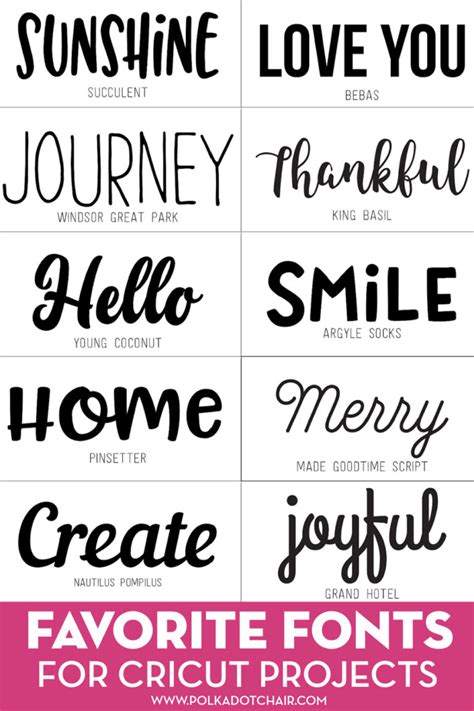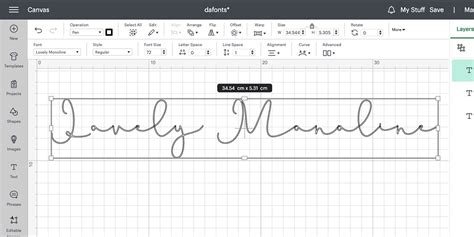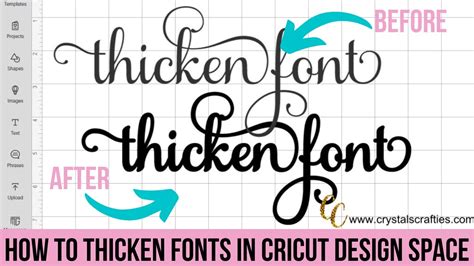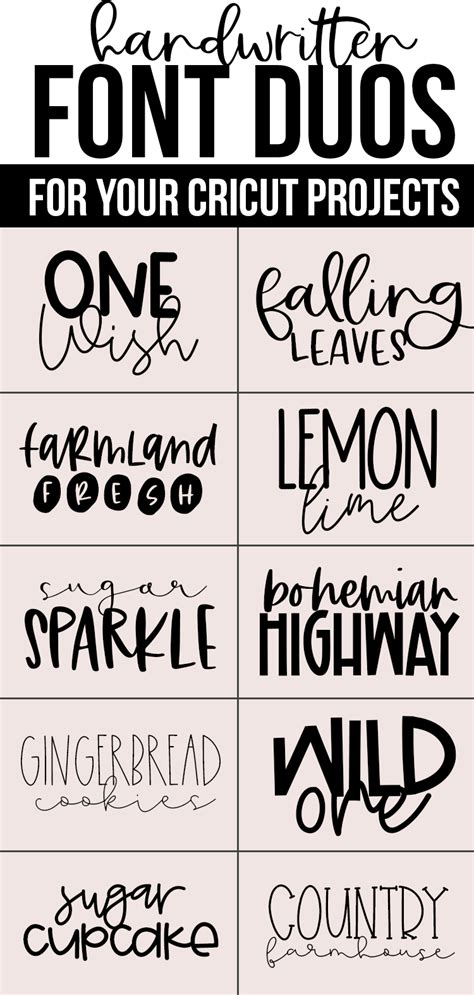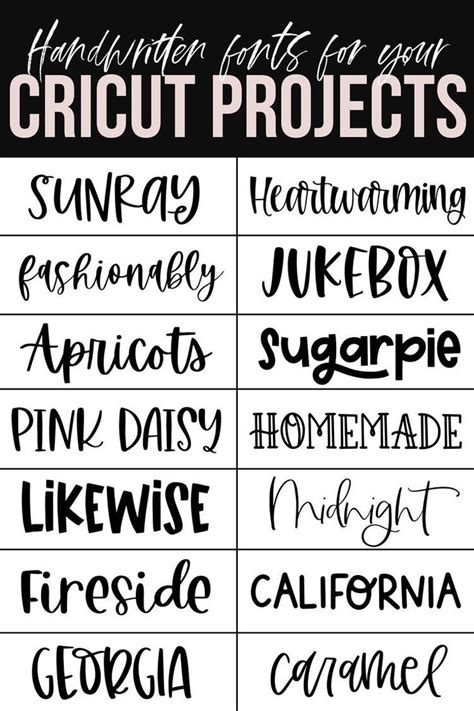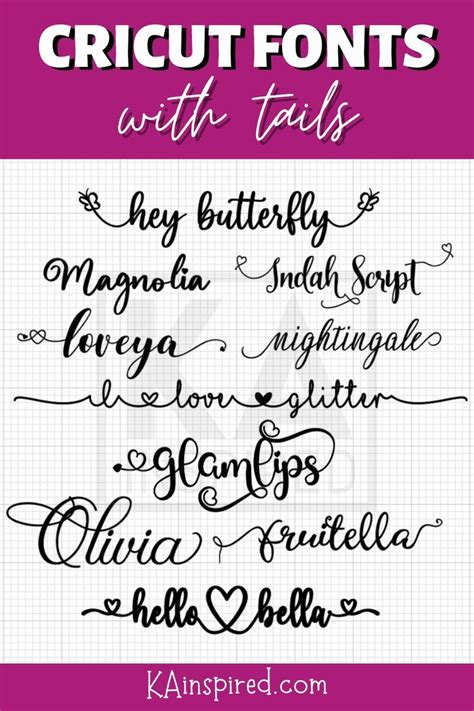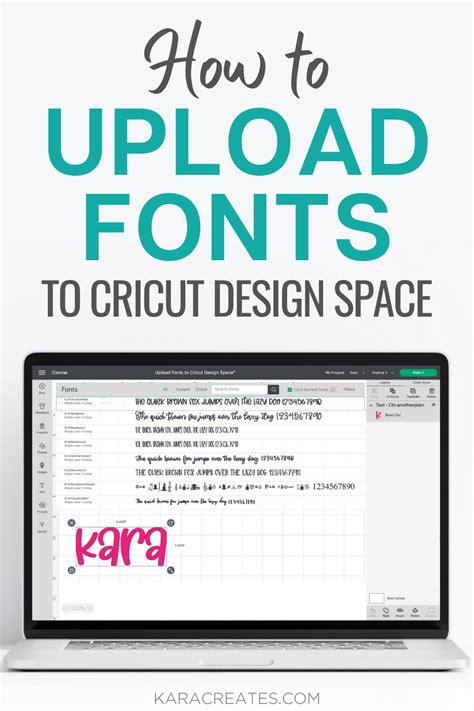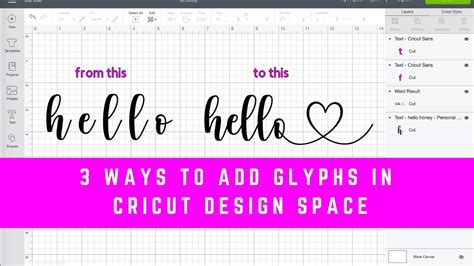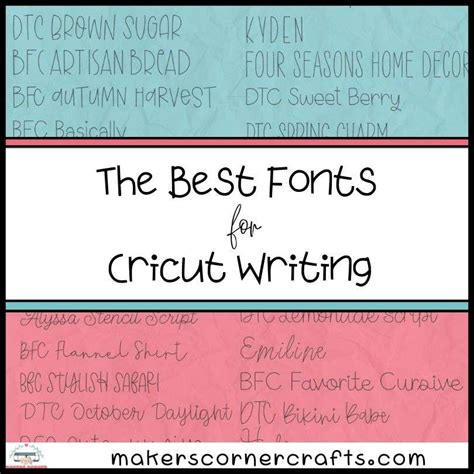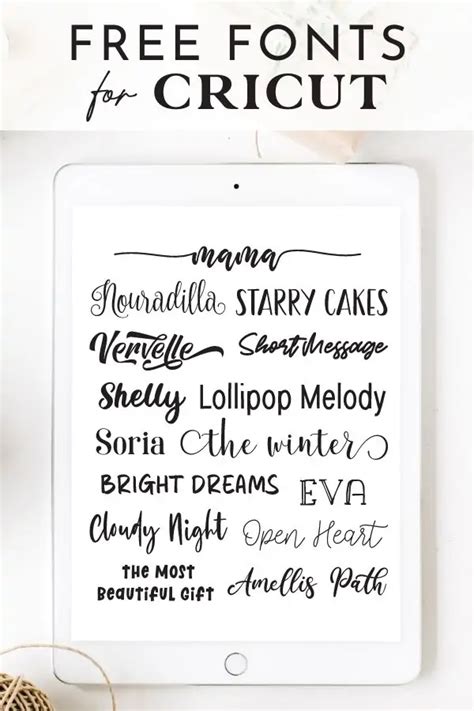
Explore the world of fonts on Cricut and discover how this innovative tool can elevate your crafting and design projects. Cricut, a popular cutting machine, offers a unique feature that allows users to utilize various fonts, adding a personalized touch to their creations. This introduction will delve into the fascinating realm of typography and its integration with Cricut, providing insights into the creative possibilities it presents.
One of the key aspects to consider is the customization it offers. With Cricut's design software, users can access a wide range of fonts, from classic serif and sans-serif styles to modern, hand-drawn variations. This extensive collection enables crafters and designers to choose the perfect font that aligns with their project's theme and aesthetic.
The benefit of using fonts on Cricut is undeniable. It empowers users to create unique, personalized designs, from invitations and wedding decorations to custom signage and home decor. The ability to experiment with different fonts and styles opens up a world of creative opportunities, allowing for the creation of truly distinctive and memorable pieces.